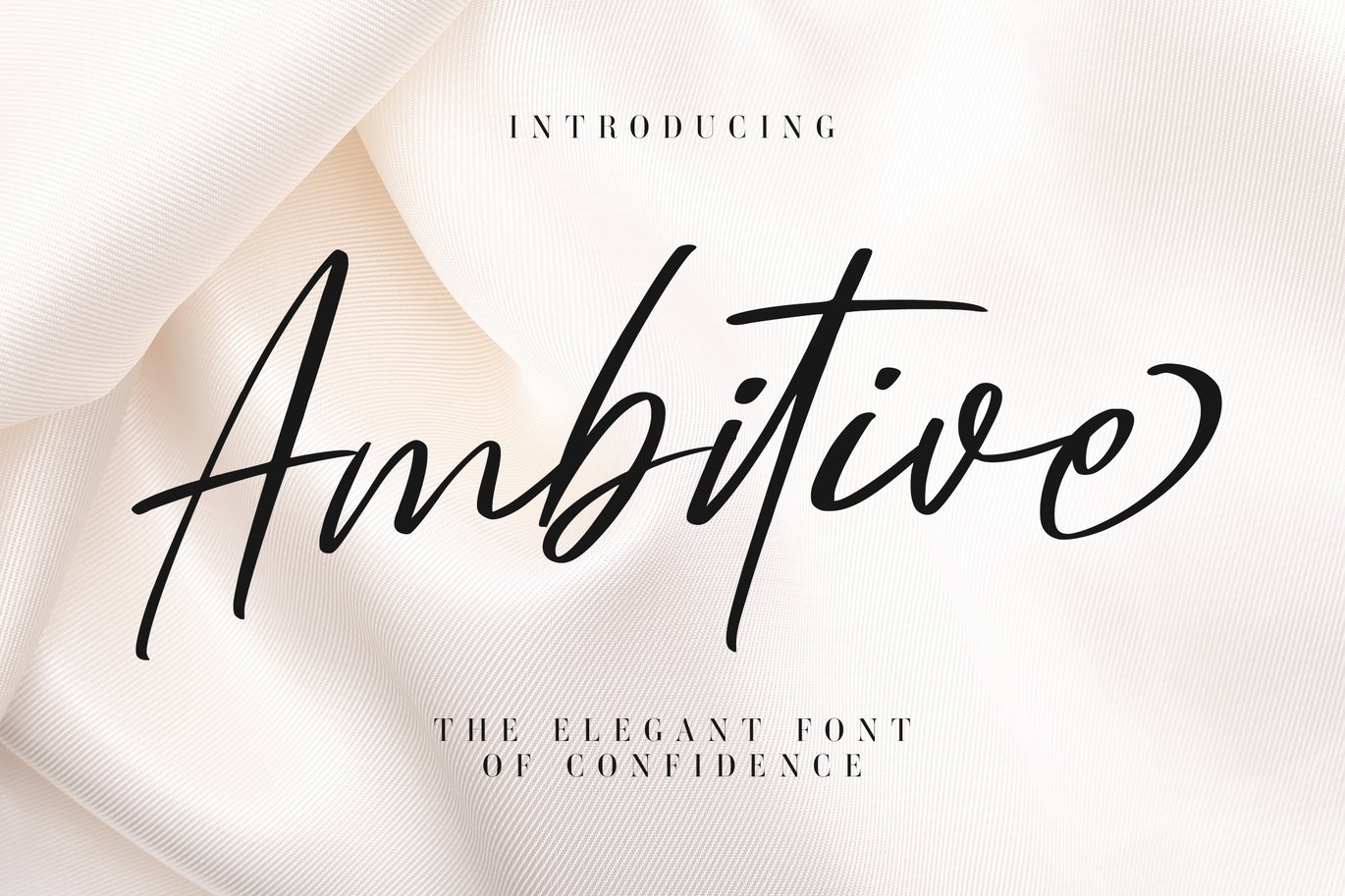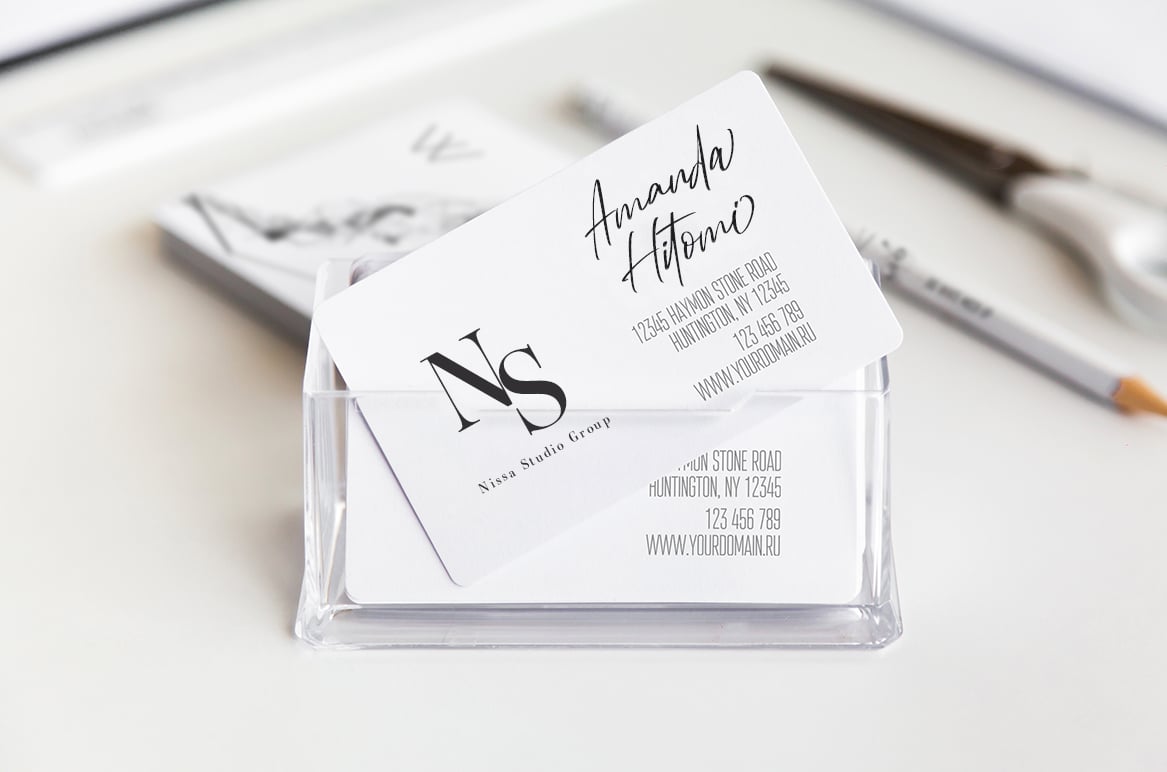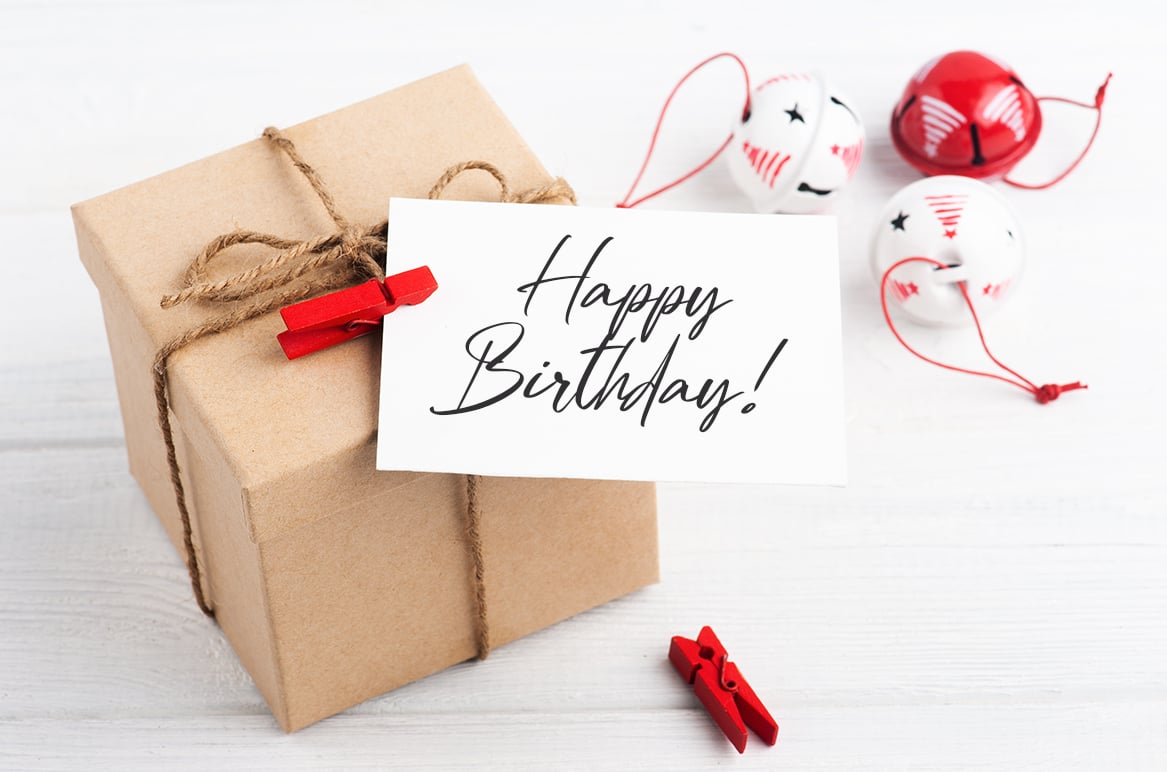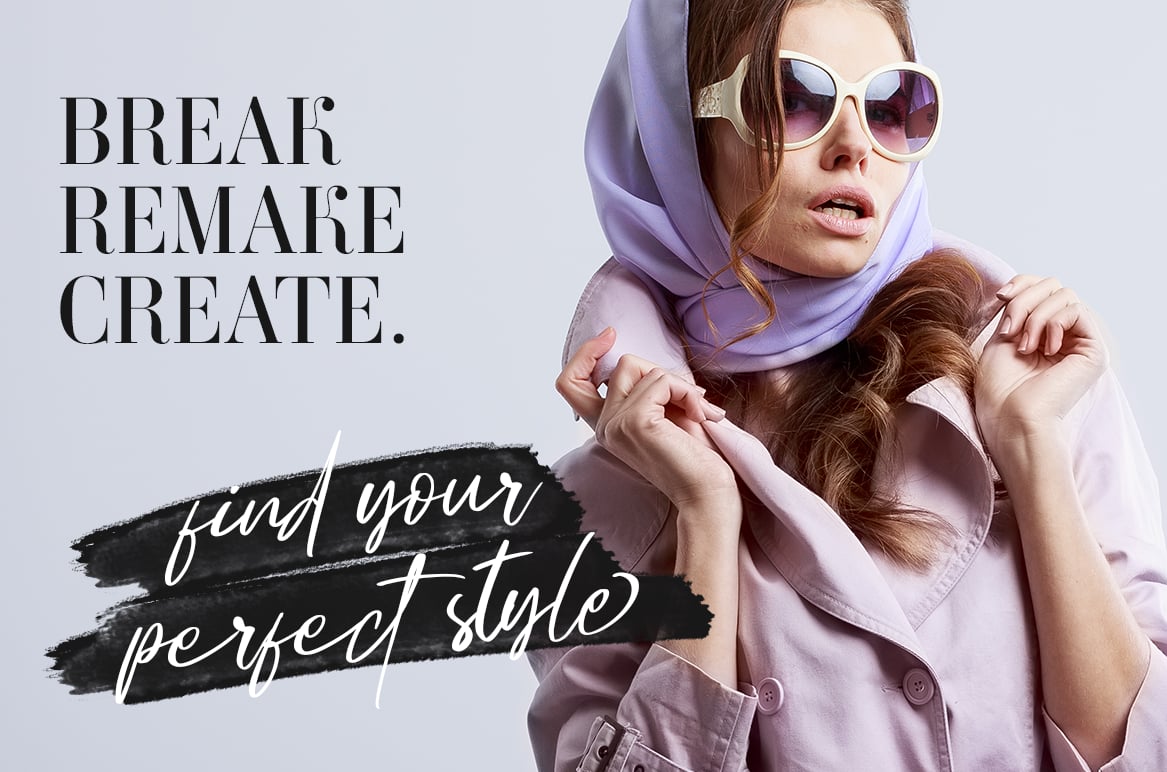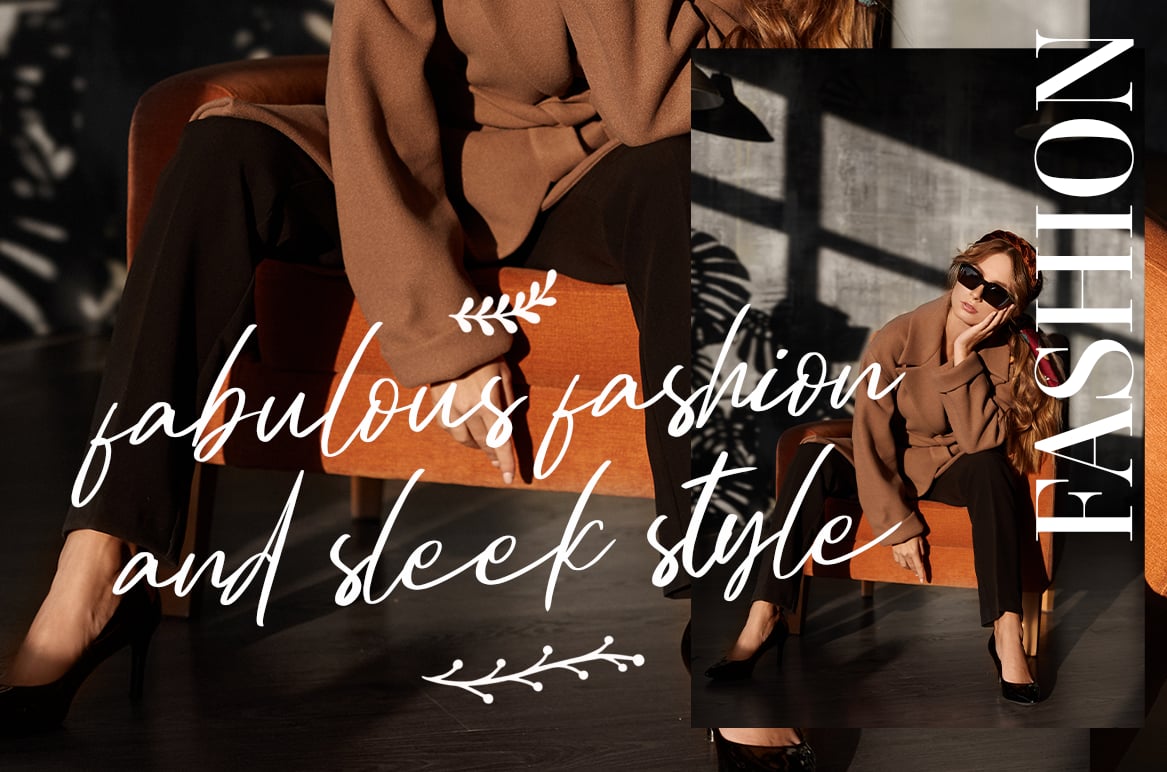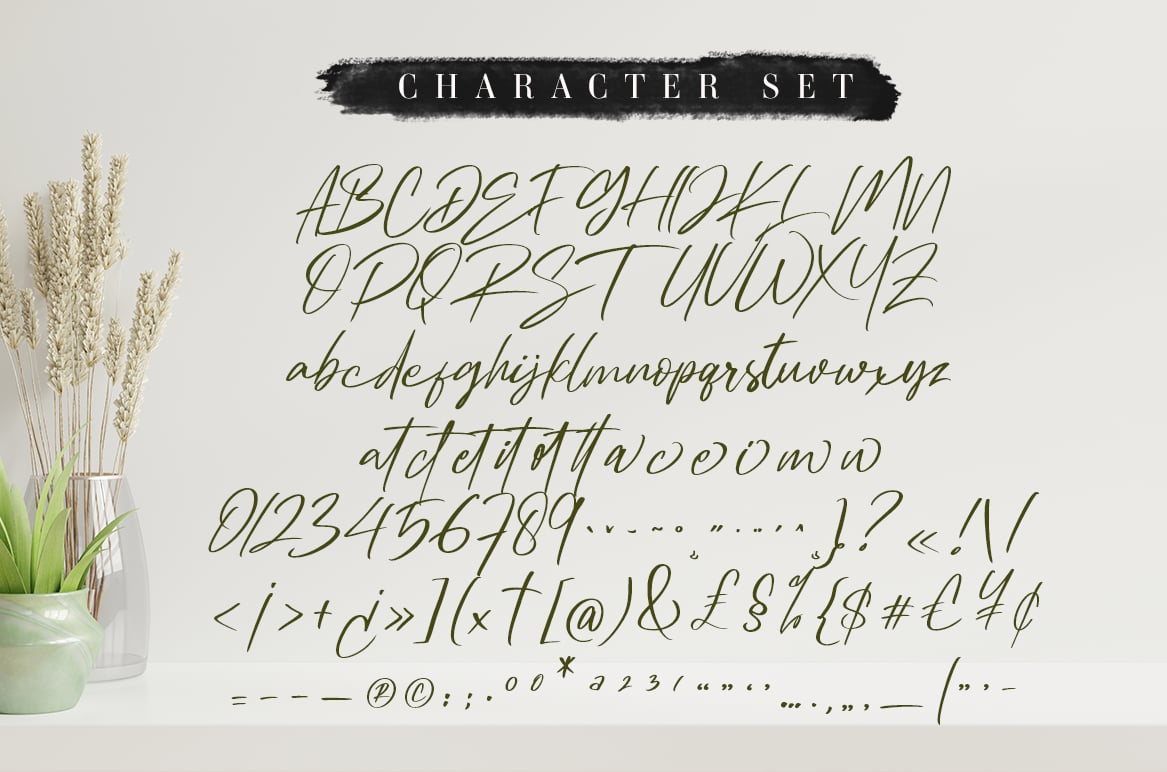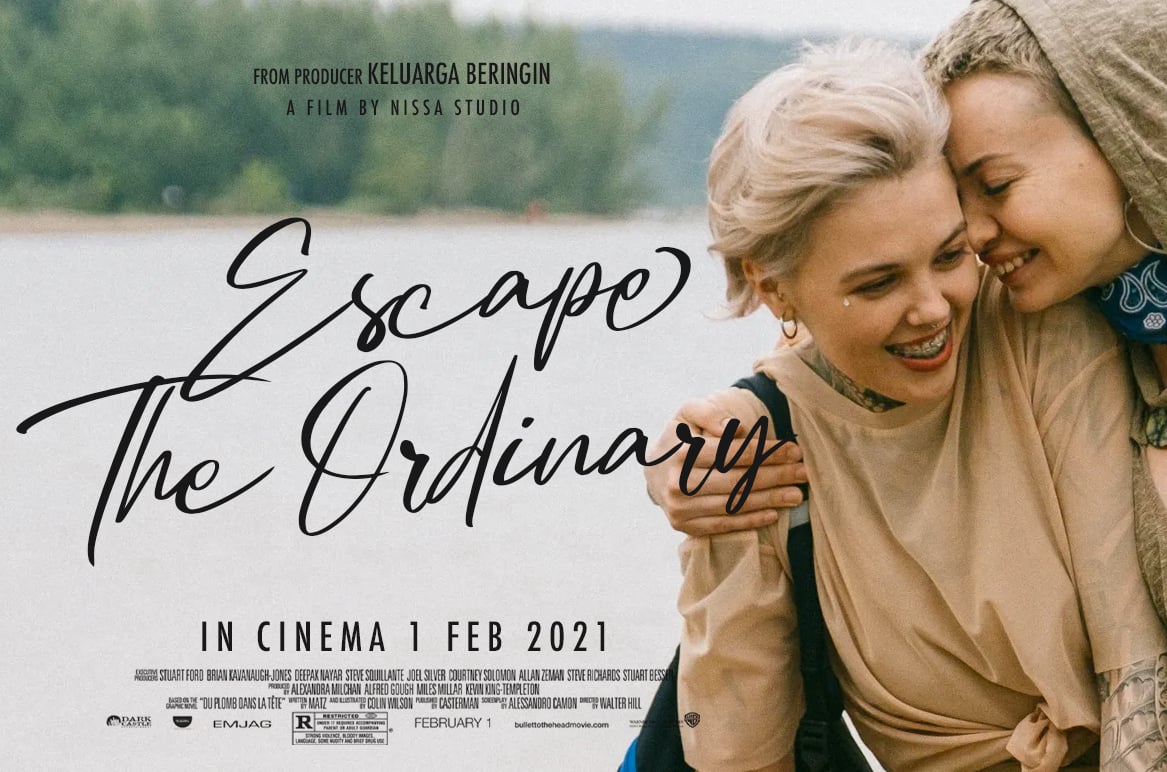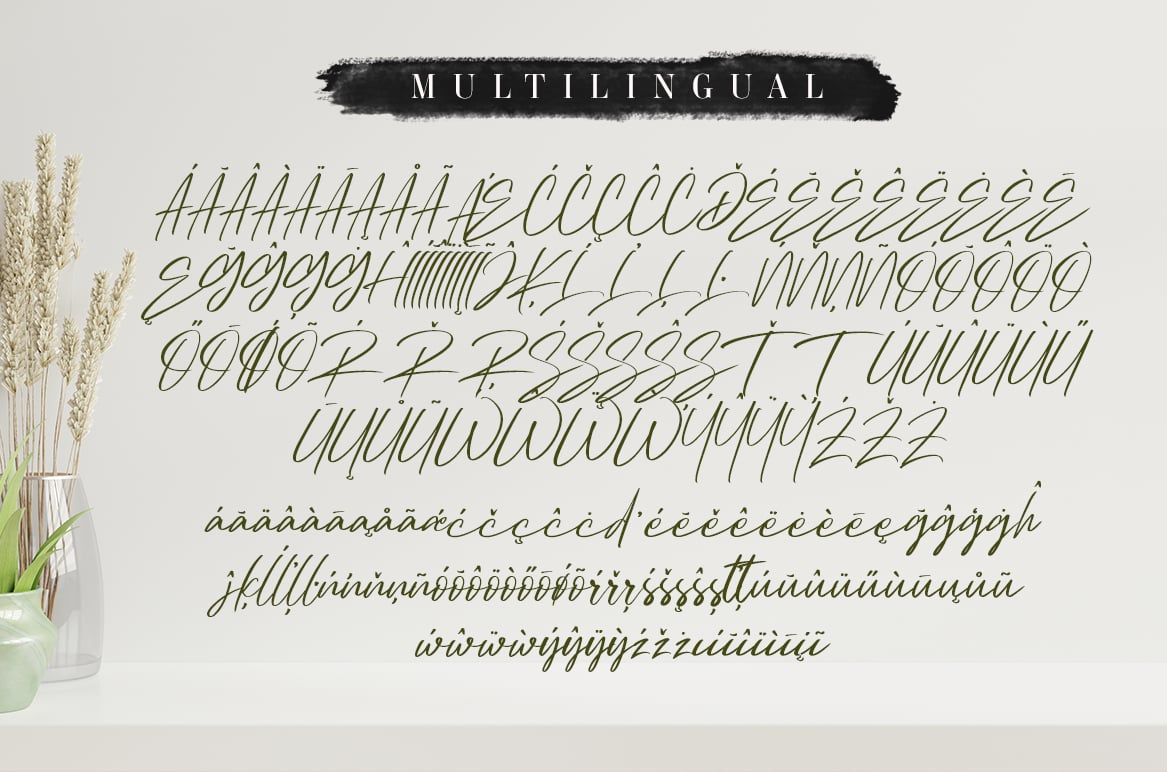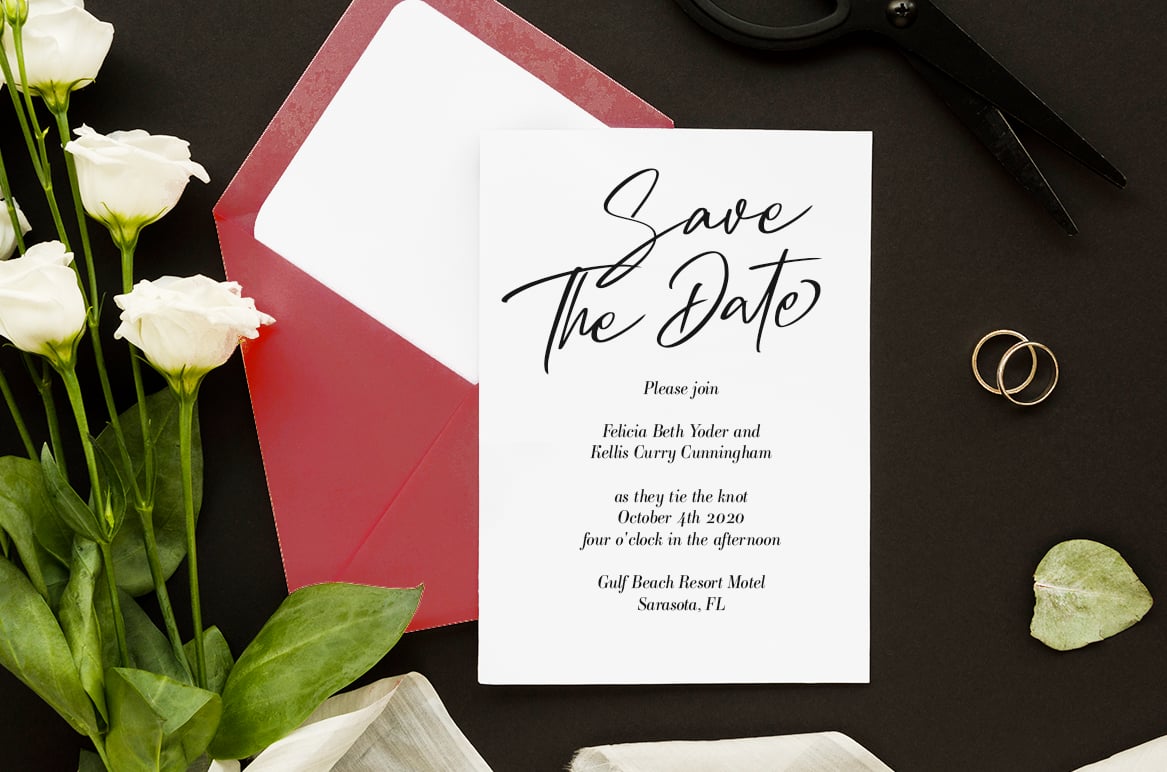
Ambitive – Elegant Font
Ambitive simplifies elegance into one truly outstanding script font. Fall in love with its incredibly versatile style and use it to create gorgeous wedding invitations, beautiful stationary art, eye-catching social media posts, and much more!
- Ligatures, Swash, Alternates